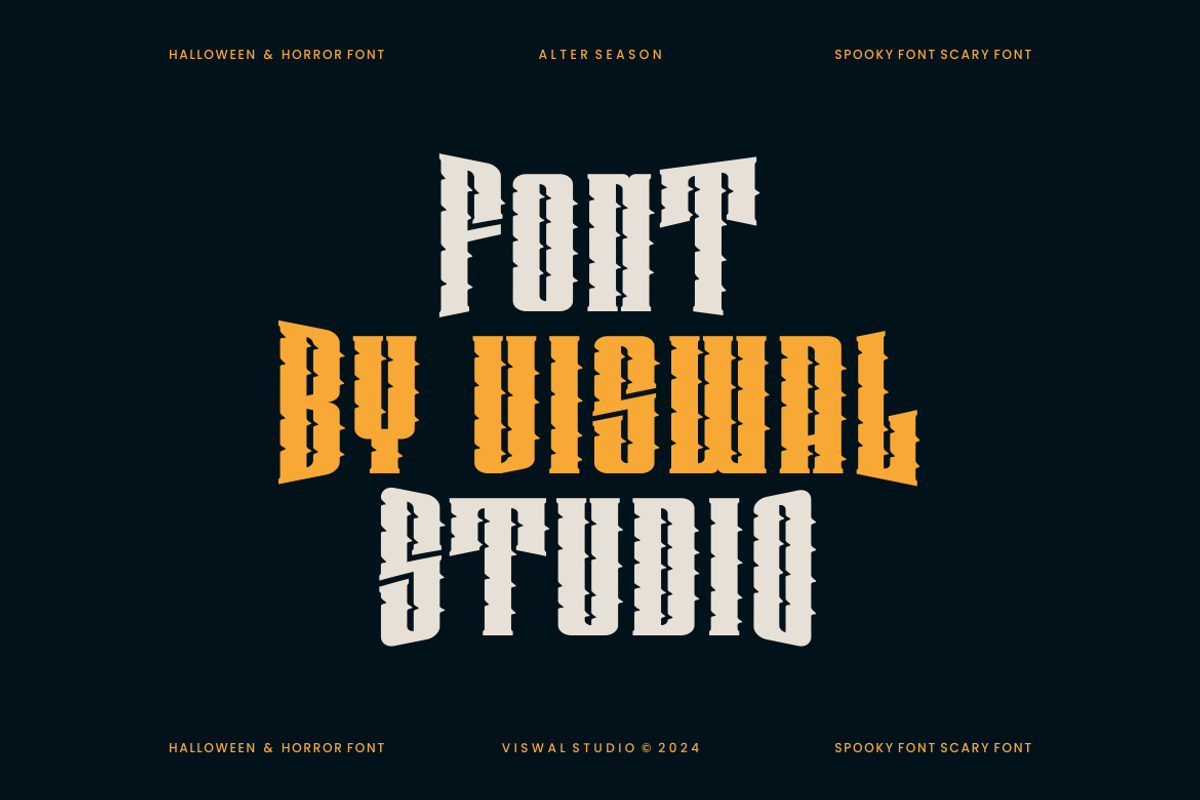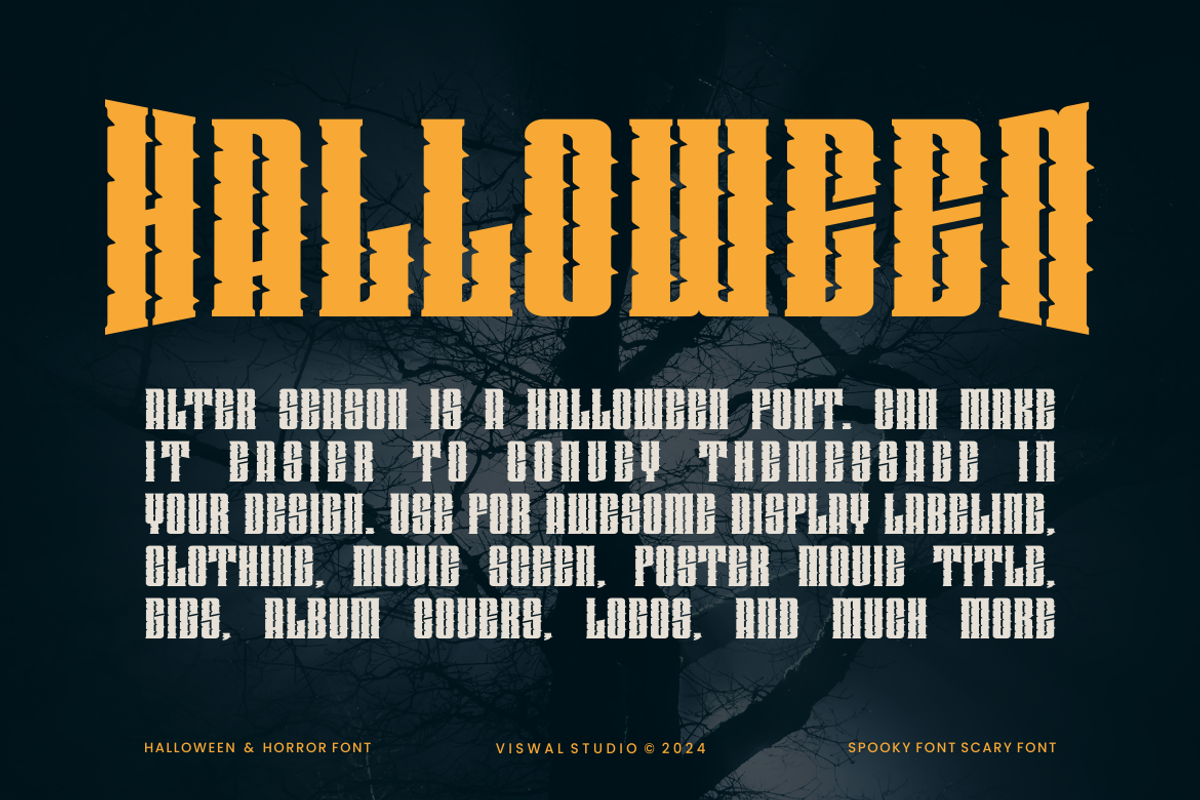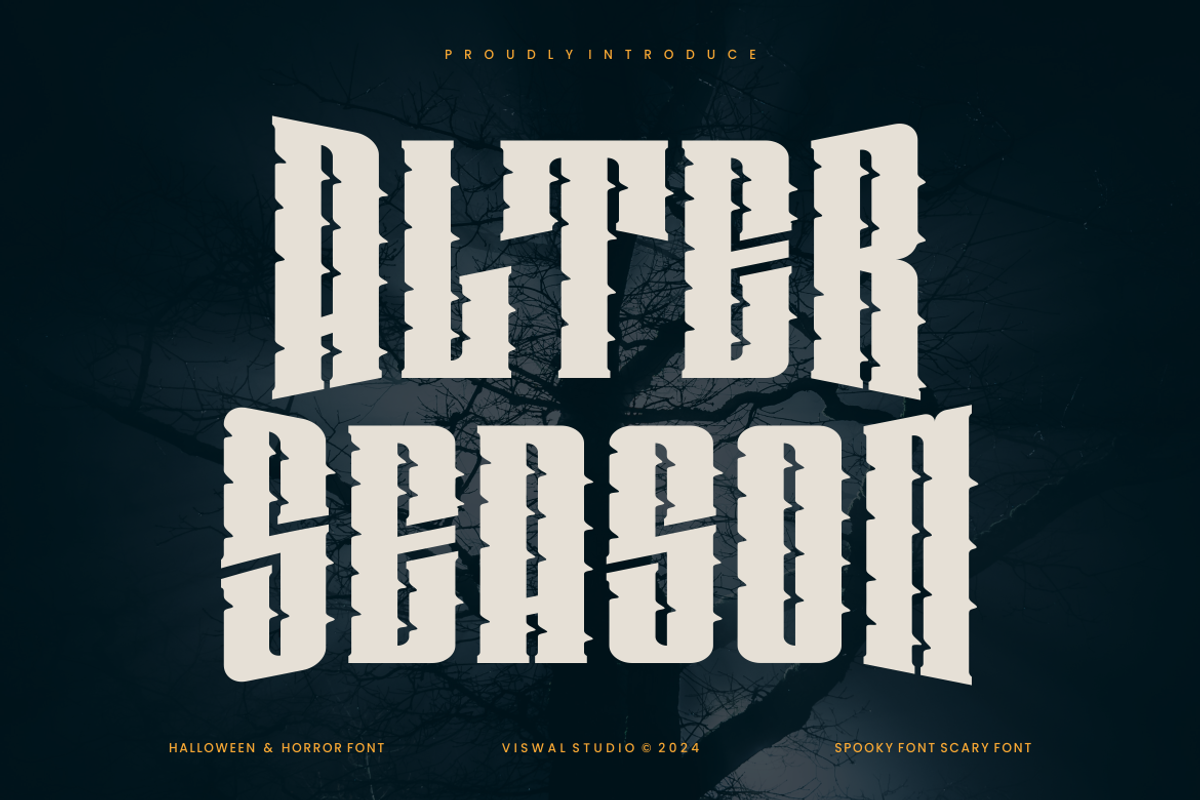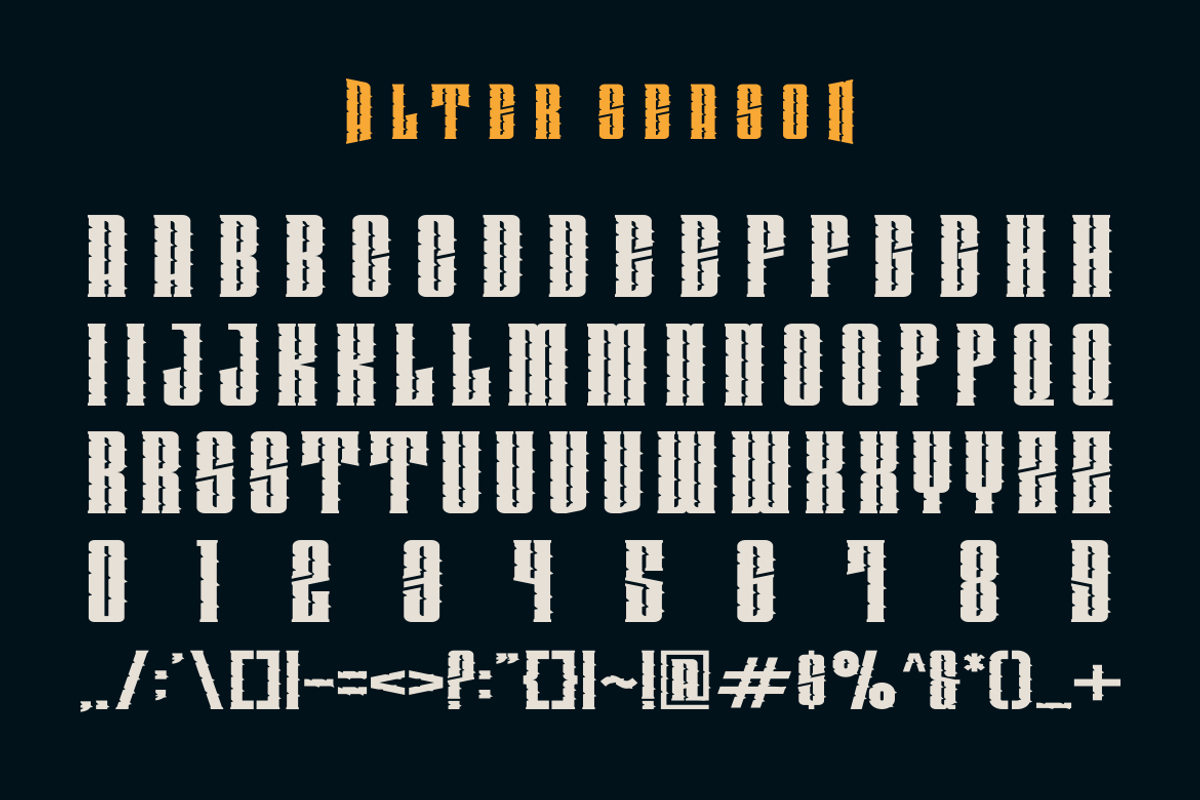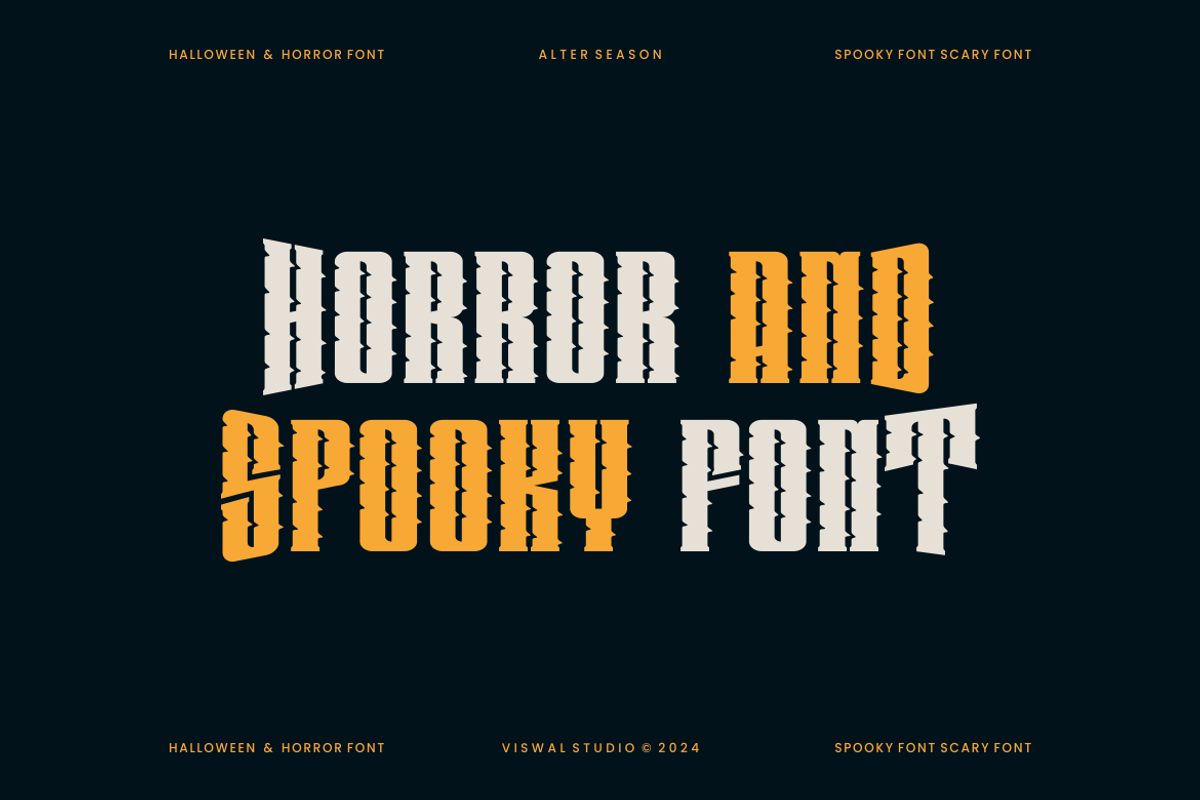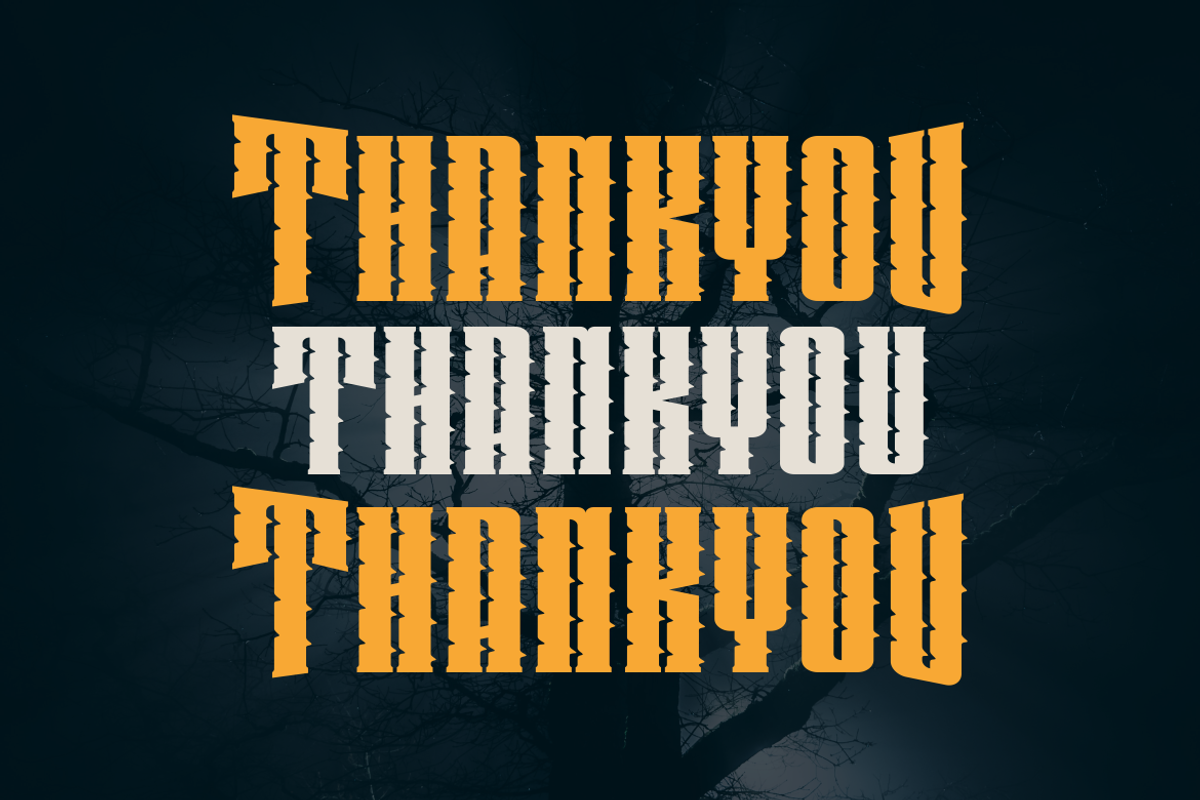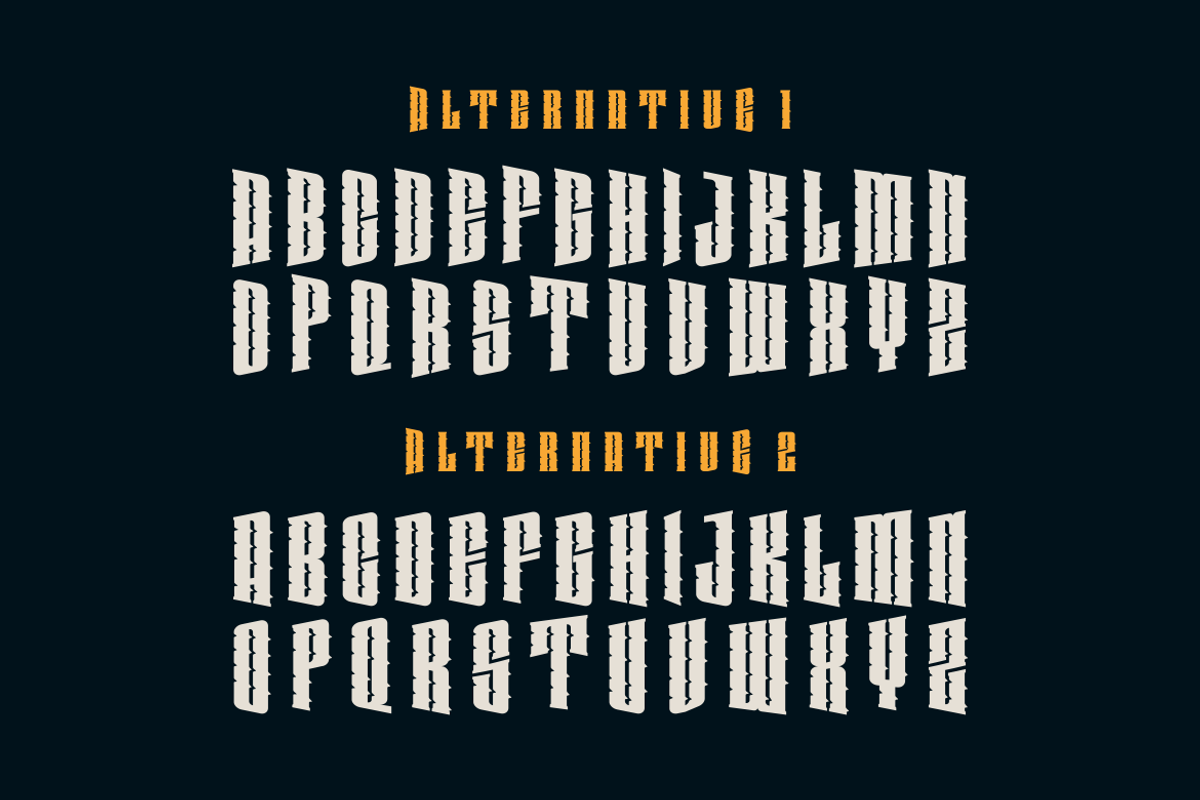
Alter Season - Horror Halloween Font
Presenting Alter Season Is A Horror Halloween Font
Can Make It Easier To Convey The Message In Your Design. Font Is Suitable For Logo, Labels, Badge, Branding, Magazine, Poster, Title, Gigs, Covers And Etc. Our Fonts Have Uppercase & Lowercase, Numeral & Punctuation, And Opentype Features. For Amazing Designs You Can Mix With Other Fonts As A Complement.